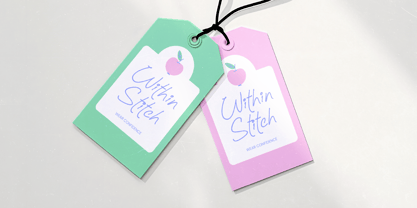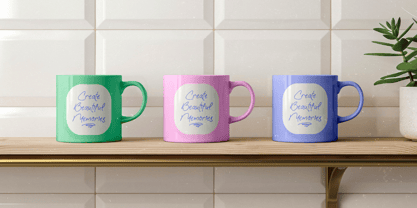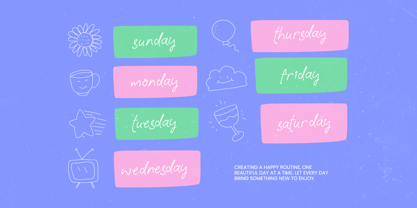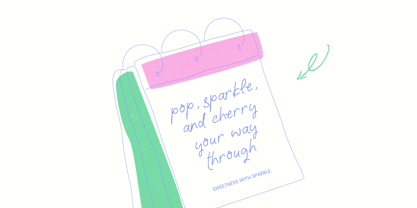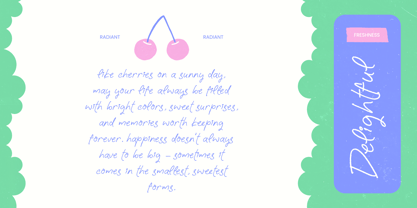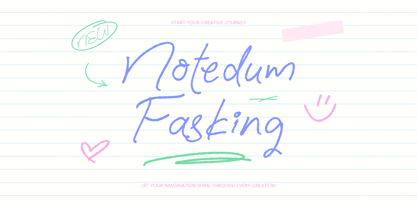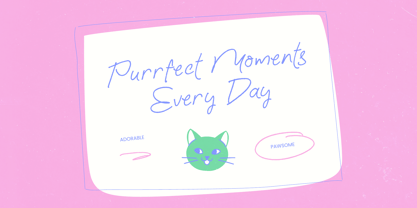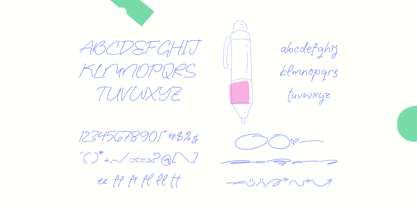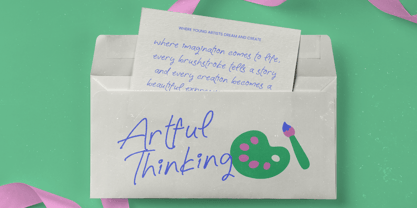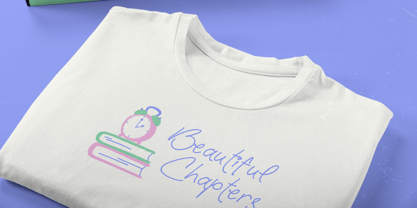
Notedum Fasking
Die Schriftfamilie Notedum Fasking wurde von Heru Utama Putra entworfen und von Stylishtype Studio veröffentlicht. Notedum Fasking enthält 2 Stile und Familienpaketoptionen. Mehr über diese Familie
Notedum Fasking captures the raw, unfiltered essence of a personal journal, turning every digital word into a moment of authentic human connection. It is the perfect choice for designers looking to inject a sense of warmth and spontaneous energy into their creative layouts.
Drawing inspiration from the quick scrawl of a felt-tip pen on textured notebook paper, this typeface mimics the natural flow of handwritten notes. The slightly rough edges and organic rhythm recreate the nostalgic feel of a cherished diary or a carefully penned letter to a friend.